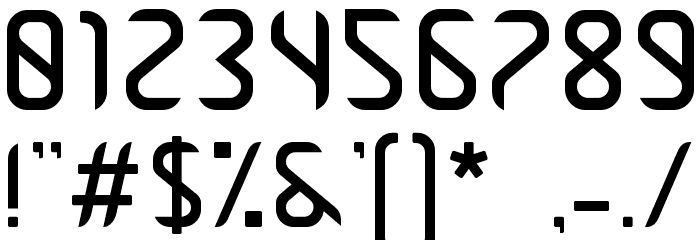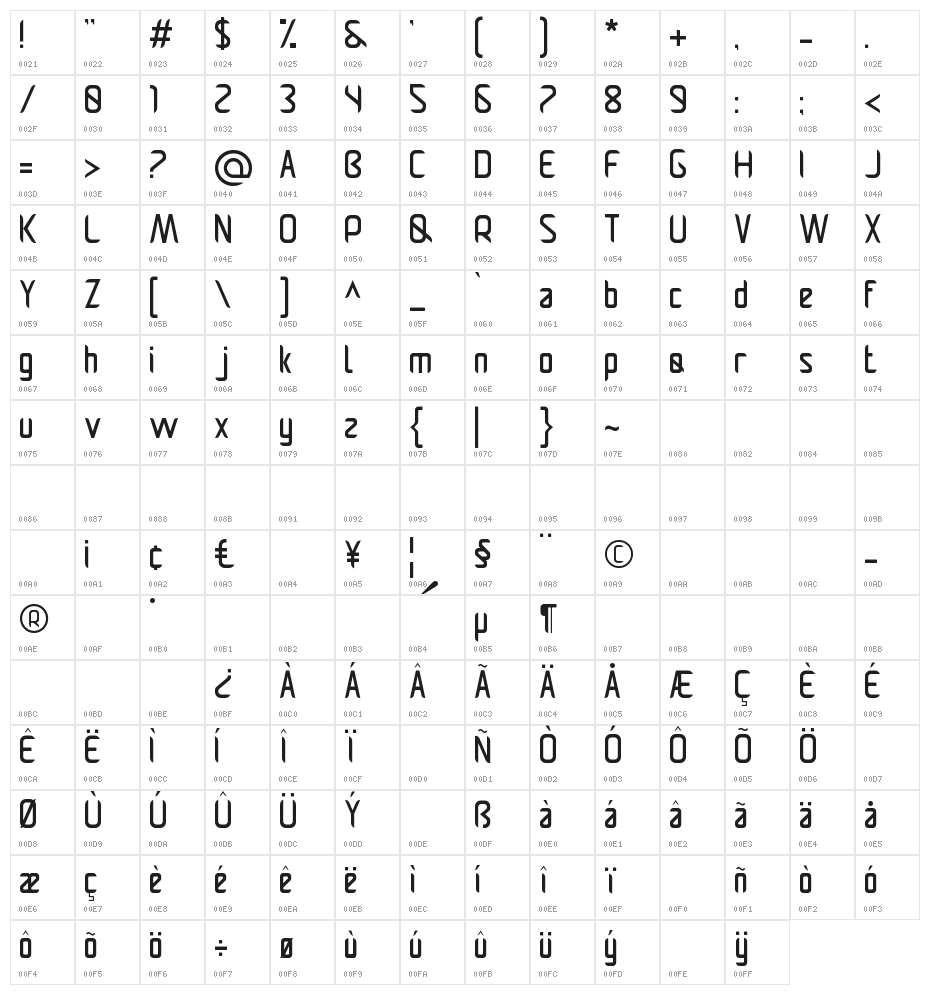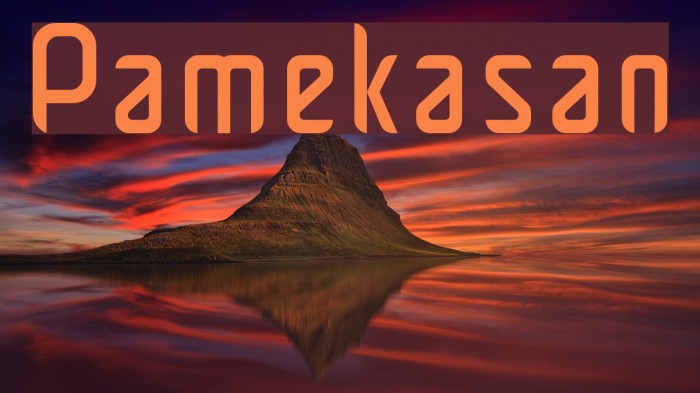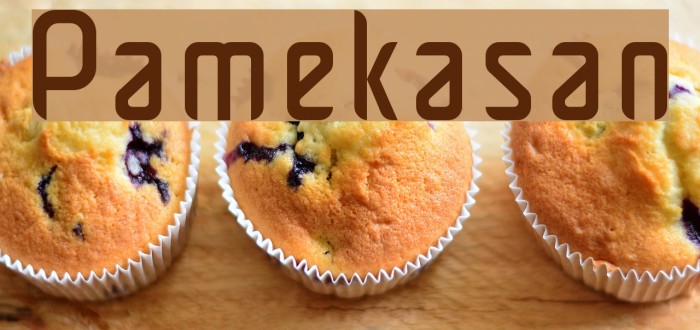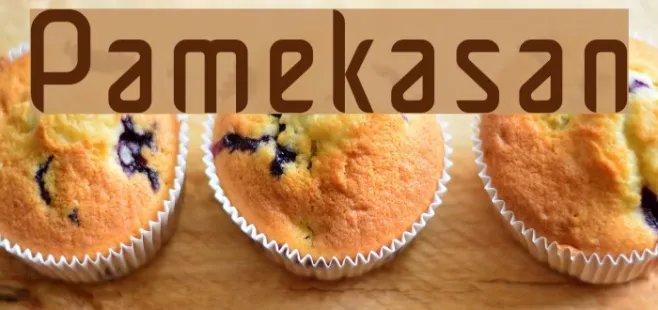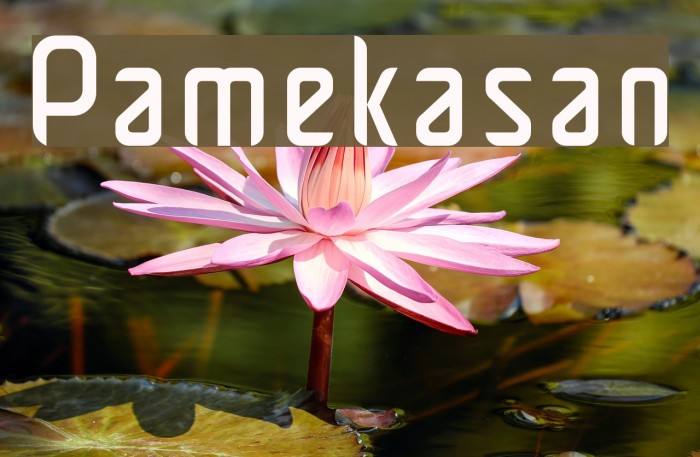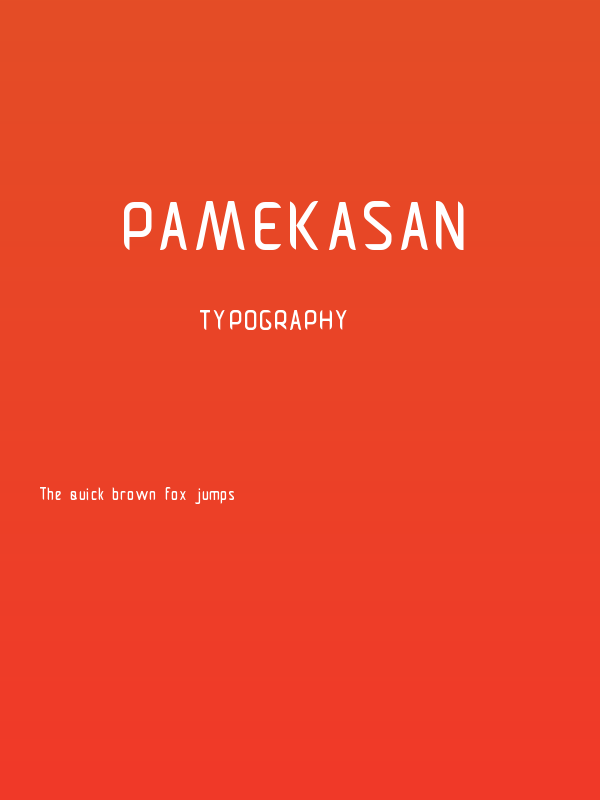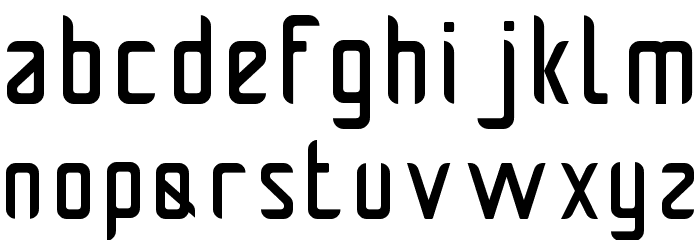
Pamekasan Font
Pamekasan Description
This font features a modern and geometric design with a distinctively rounded and streamlined appearance. The characters are crafted with a uniform stroke width, giving it a clean and cohesive look. The uppercase letters exhibit a futuristic style with slightly curved edges, while the lowercase letters maintain a consistent height and width, enhancing readability. The numerals are bold and clear, making them suitable for digital displays. Special characters are designed to complement the overall aesthetic, ensuring versatility across various applications.
| Use Case | Headlines, Logos, Digital Displays |
| Proposed Projects | Ideal for tech branding, digital interfaces, modern advertising, and futuristic design projects. |